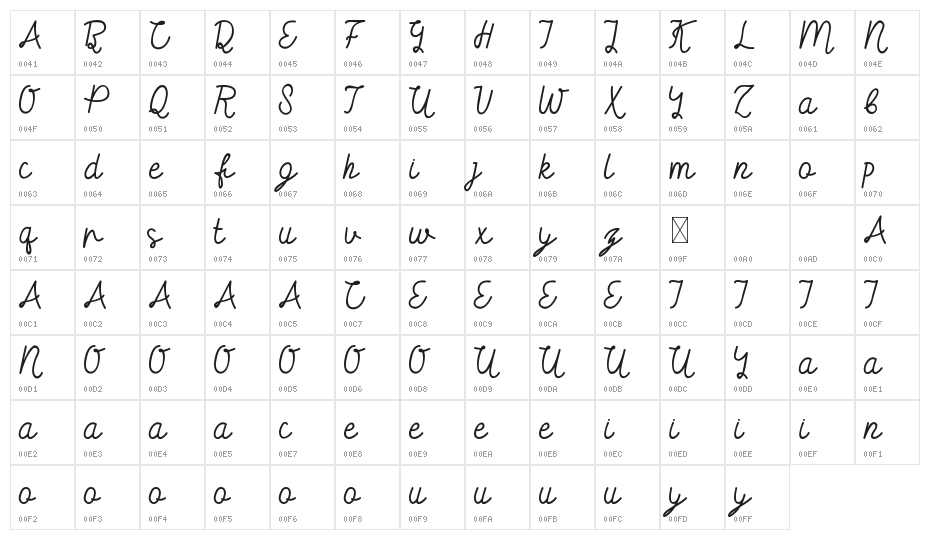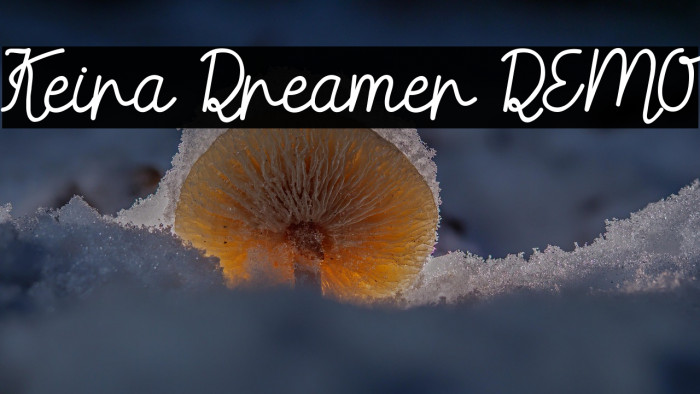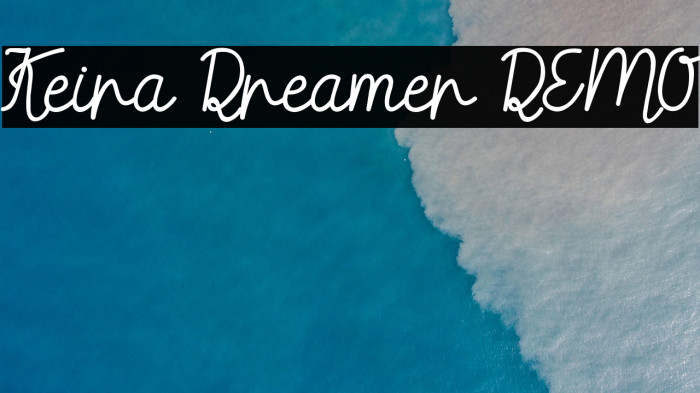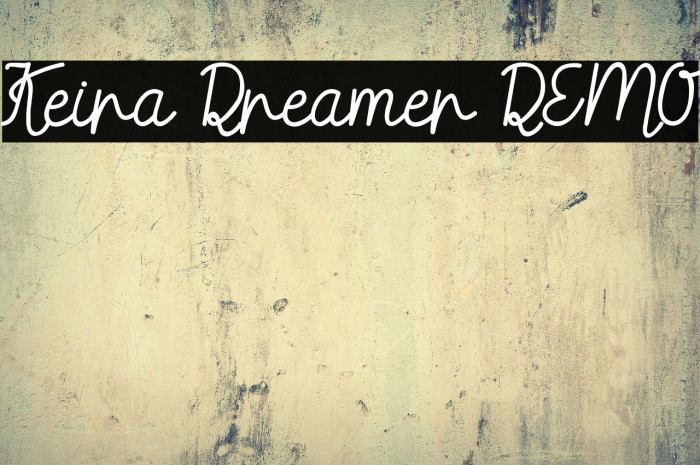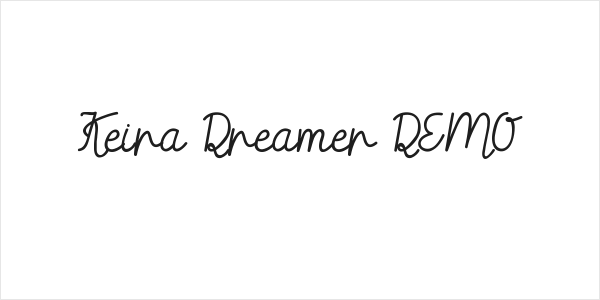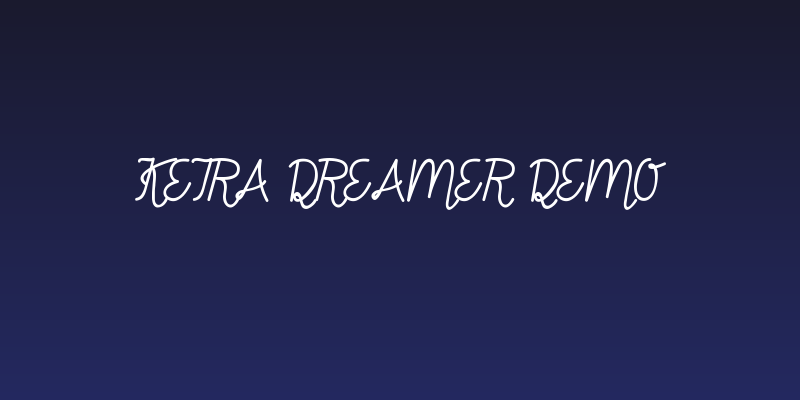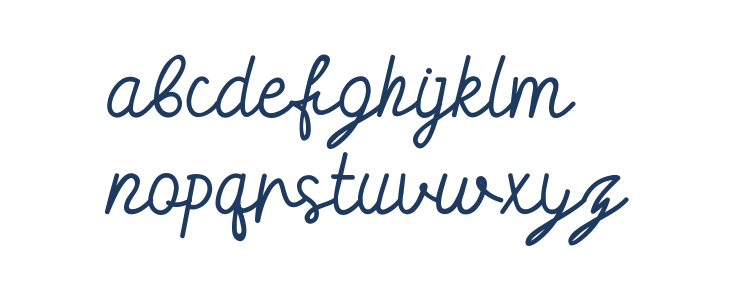
Keira Dreamer DEMO Font
Keira Dreamer DEMO Description
This font features a flowing, cursive style that mimics elegant handwriting. The letters are interconnected, creating a seamless and fluid appearance. The strokes are smooth and rounded, with a consistent thickness that gives the font a balanced and harmonious look. The uppercase letters are slightly larger and more ornate, while the lowercase letters maintain a more subdued and consistent form. This font exudes a sense of sophistication and grace, making it suitable for projects that require a personal touch.